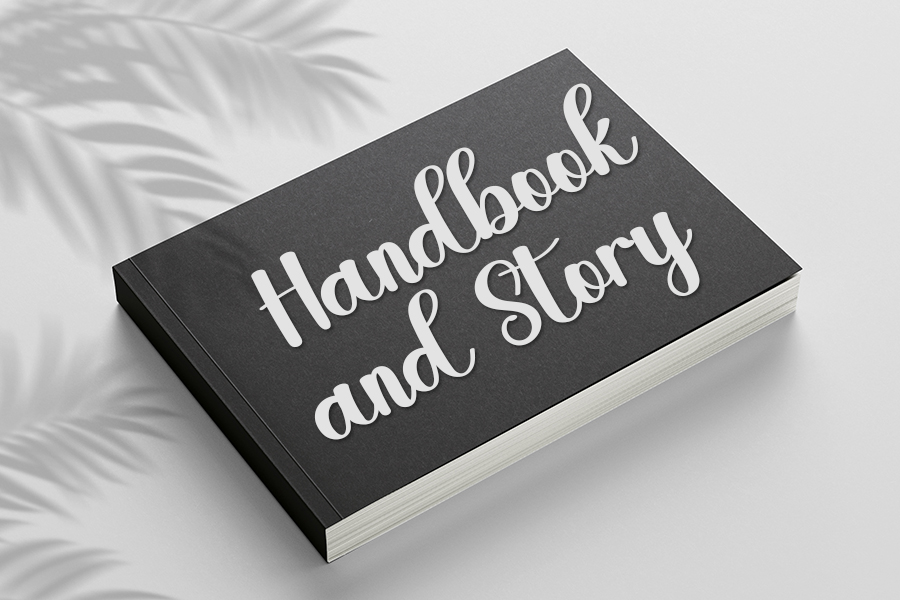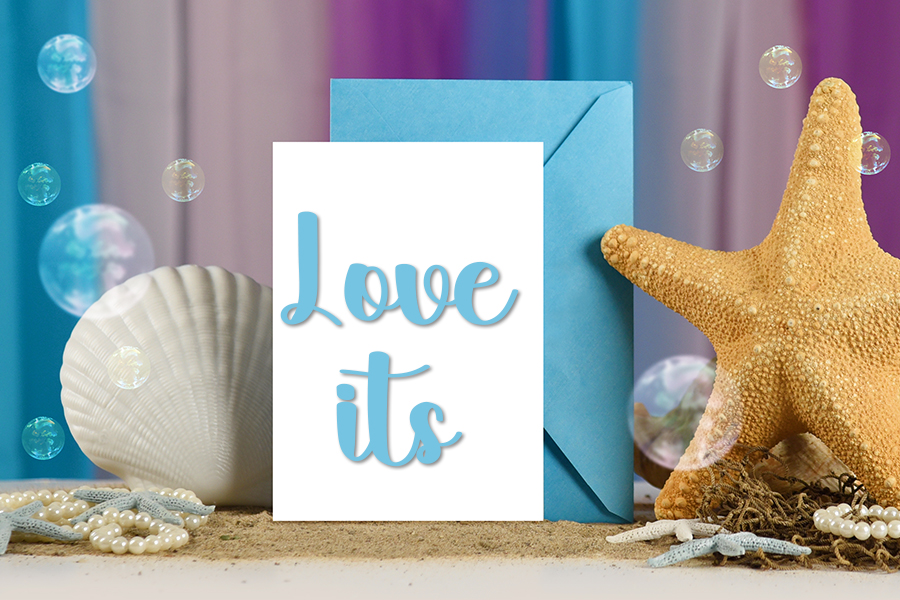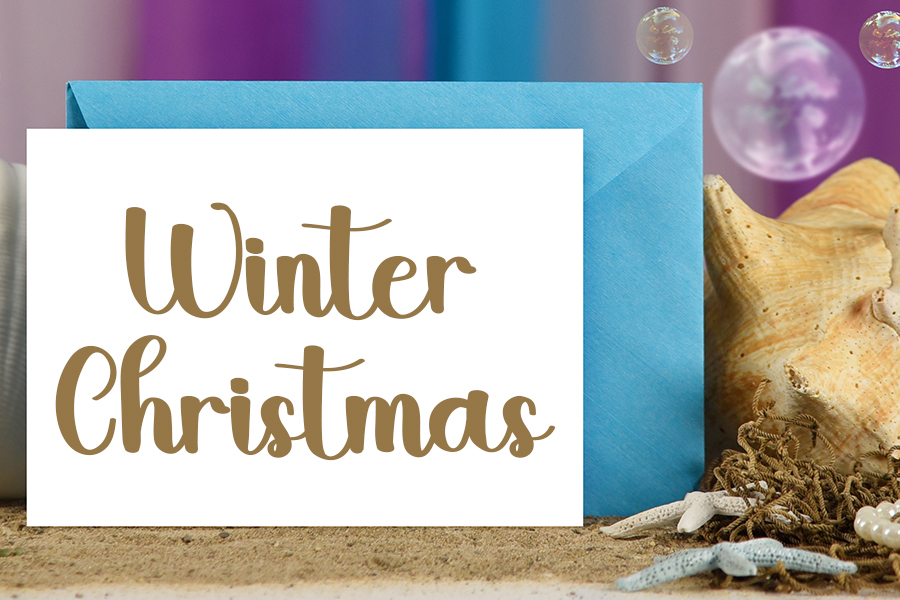
Sunday Calligraphy Typeface
This is a relaxed and beautiful paint brush handwritten font. It can be used for various purposes such as logos, wedding invitations, headings, t-shirts, letterhead, signage, labels, news, posters, badges and so much more.